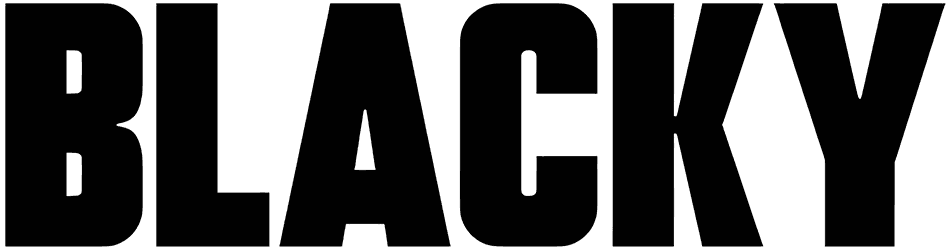
Blacky Font
It’s not very common for a bold font to be so practical with no digits or lowercase, but Blacky does that perfectly. You can just picture it on your gym signs and flyers, as well as your advertising billboards for cars, or anywhere you want to make sure no amount of distance can weaken your message.
There’s just something so remarkable about the way this all-caps font conveys its strong tone, leading to a typography design with obvious masculine vibes.
Blacky is a powerful and elegant display typeface. Inspired by design styles that are currently trending, and this is the answer to the design ideas that you will apply in this modern era, with a thick and strong style in each letter of the Blacky font as it is specialized in the world of design.
Blacky has 3 font styles including:
Regular
Semi Rounded
roundedBlacky works great on posters, social media, headlines, titles, large print – and it works on just about anything because it’s a San-Serif font.